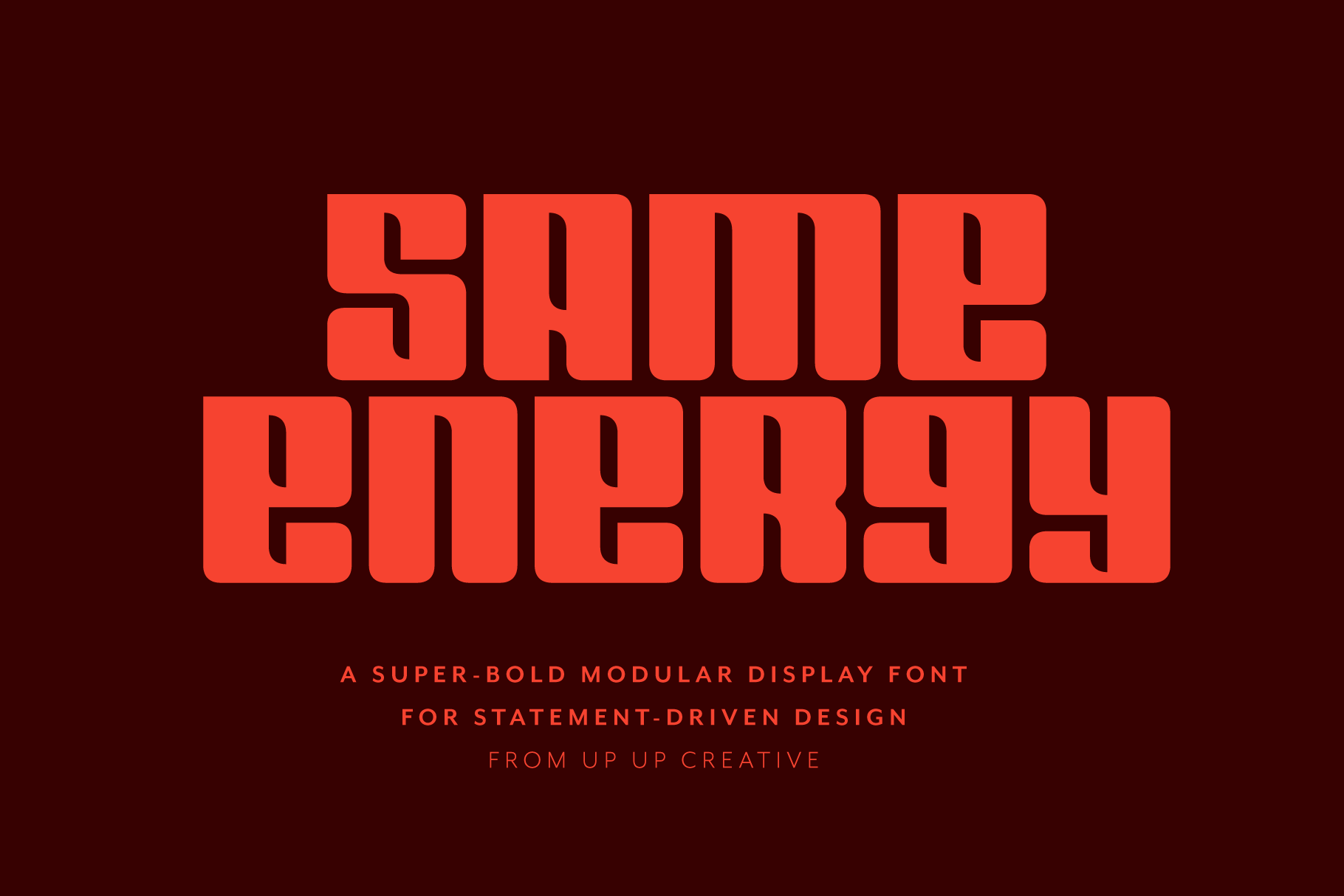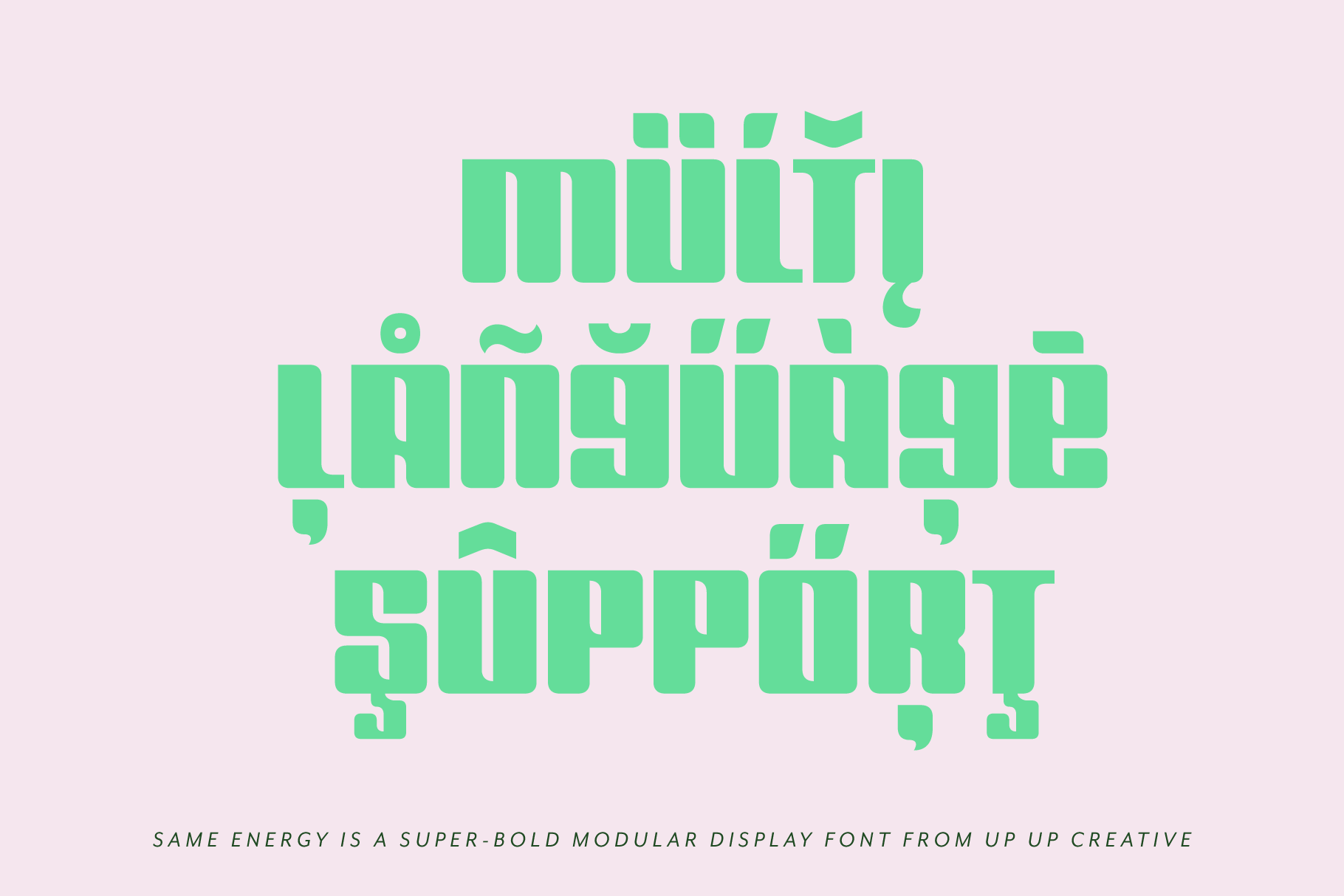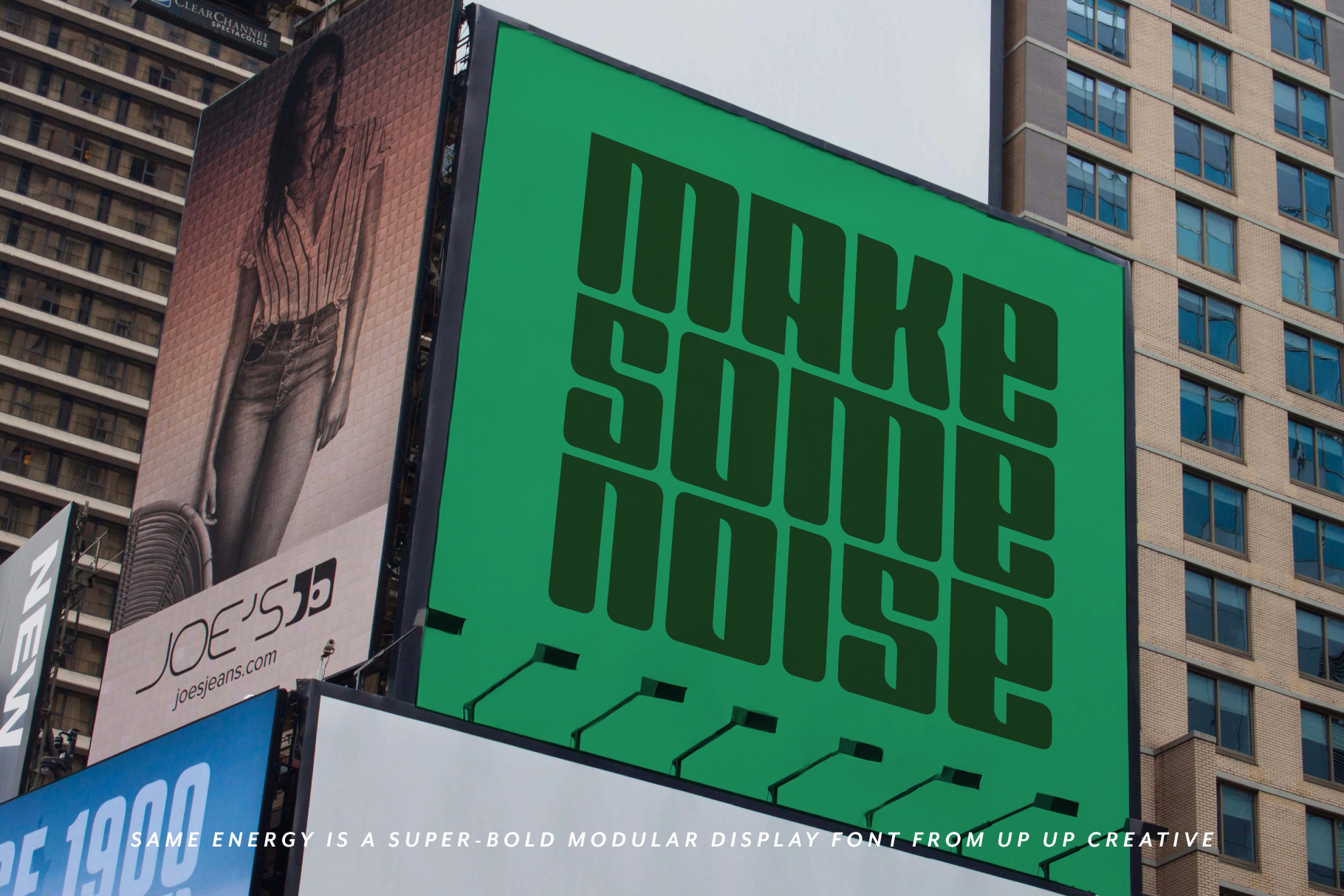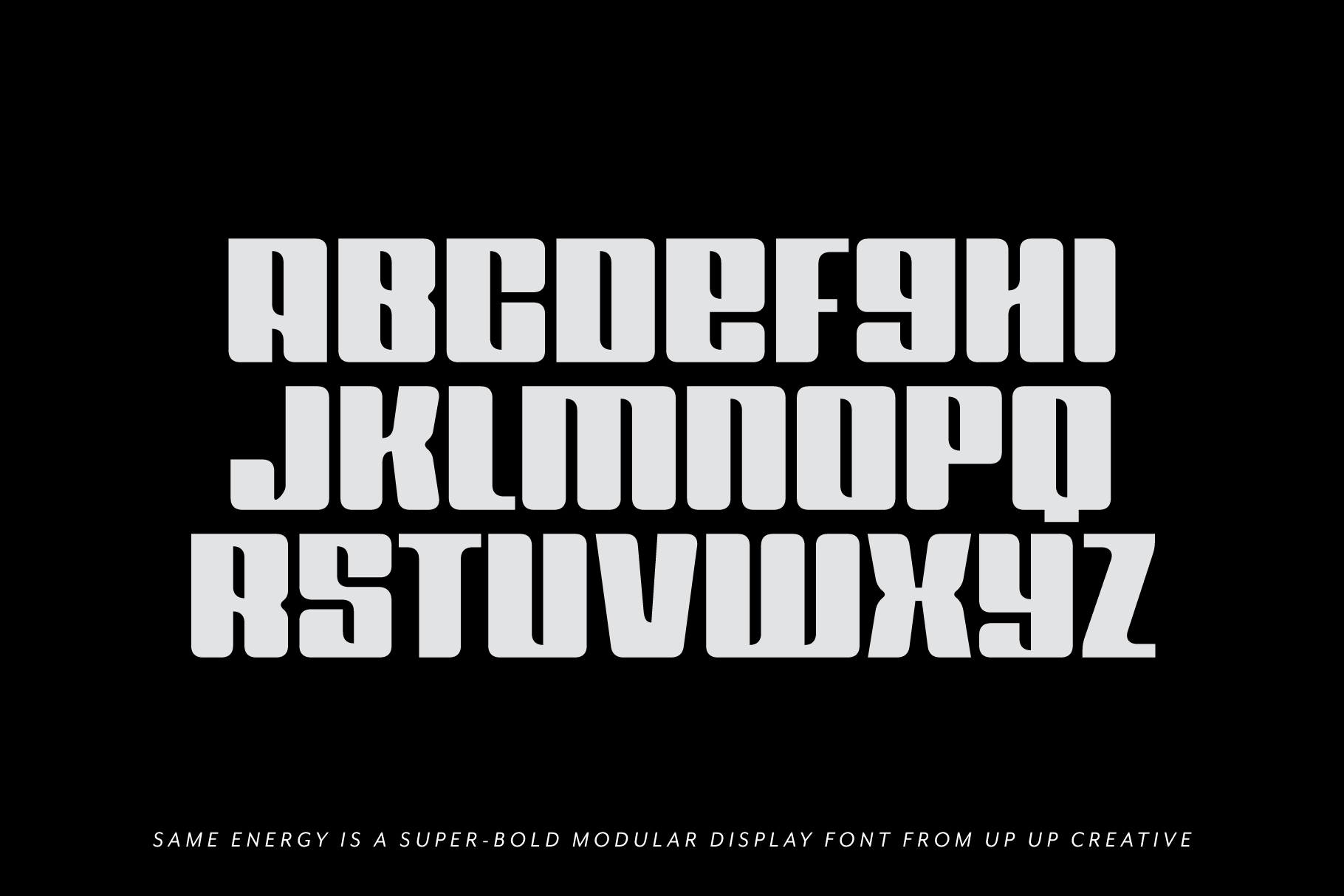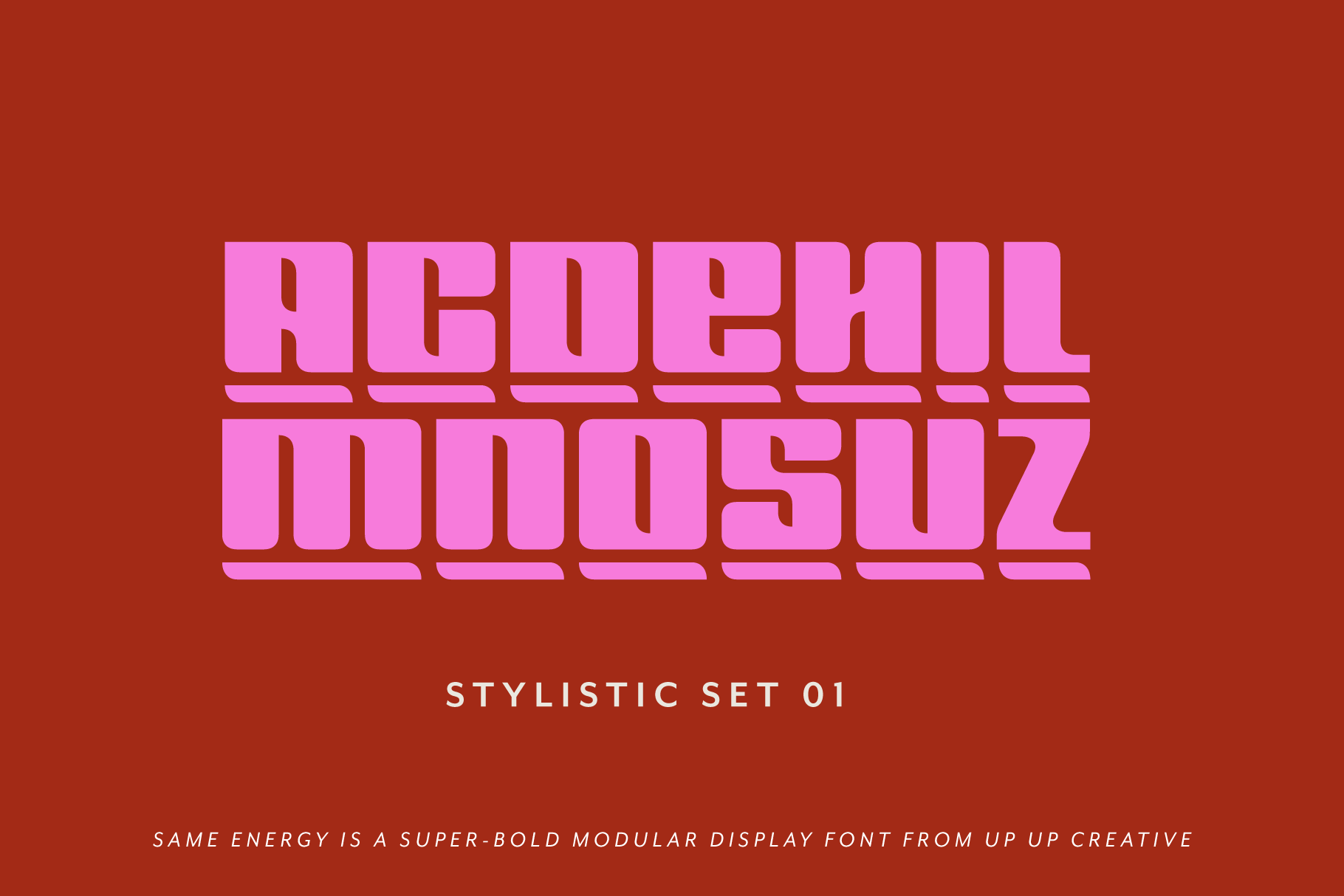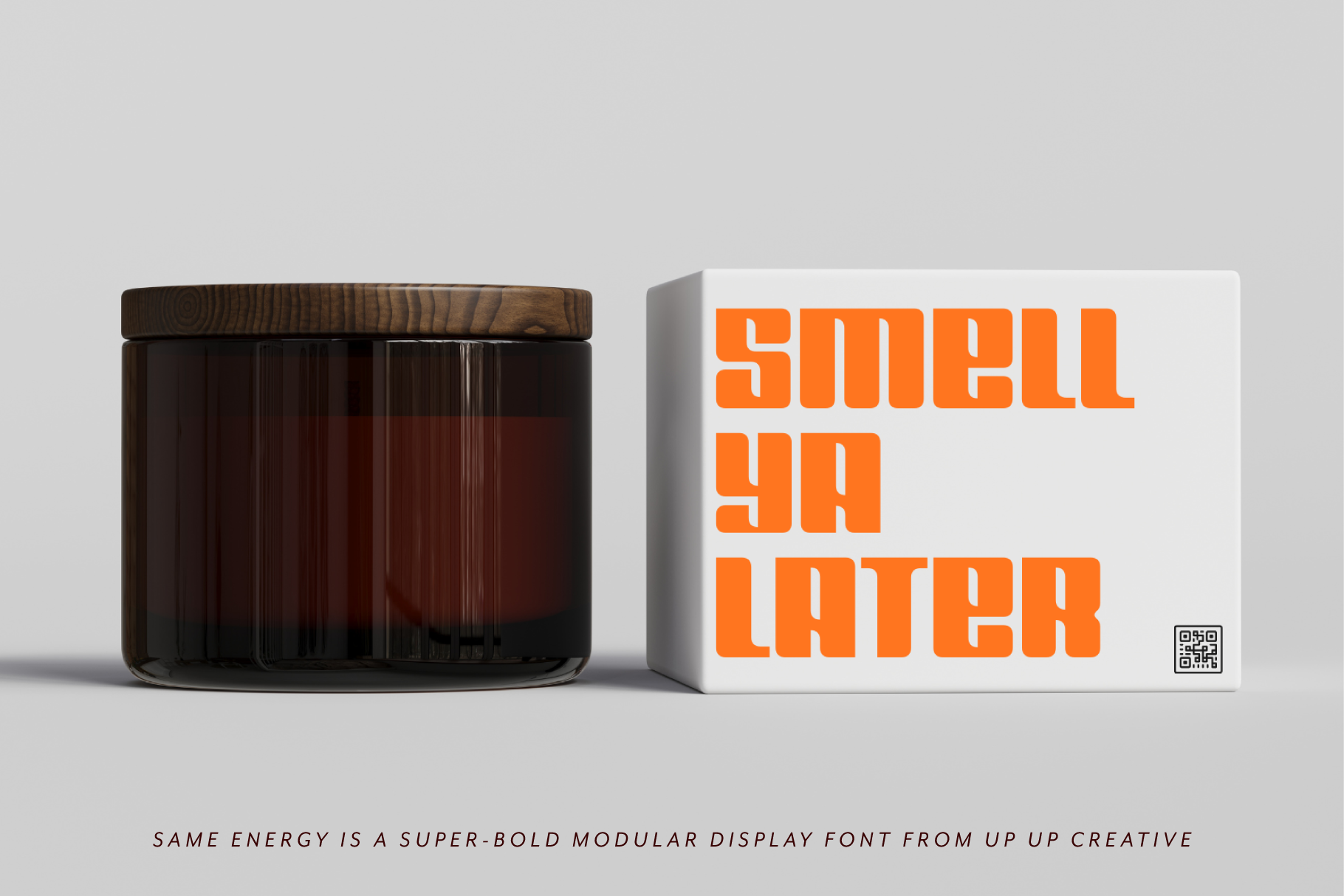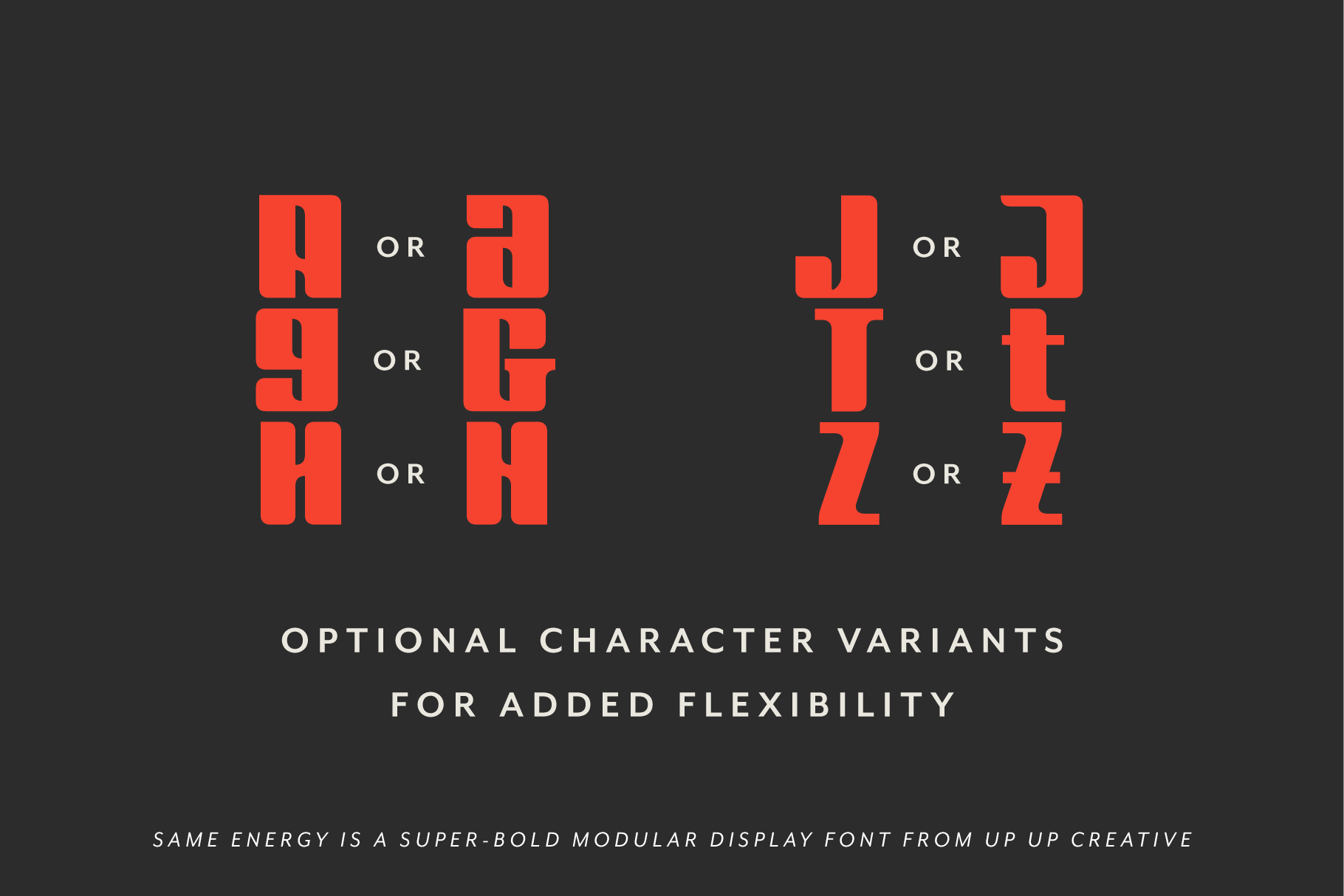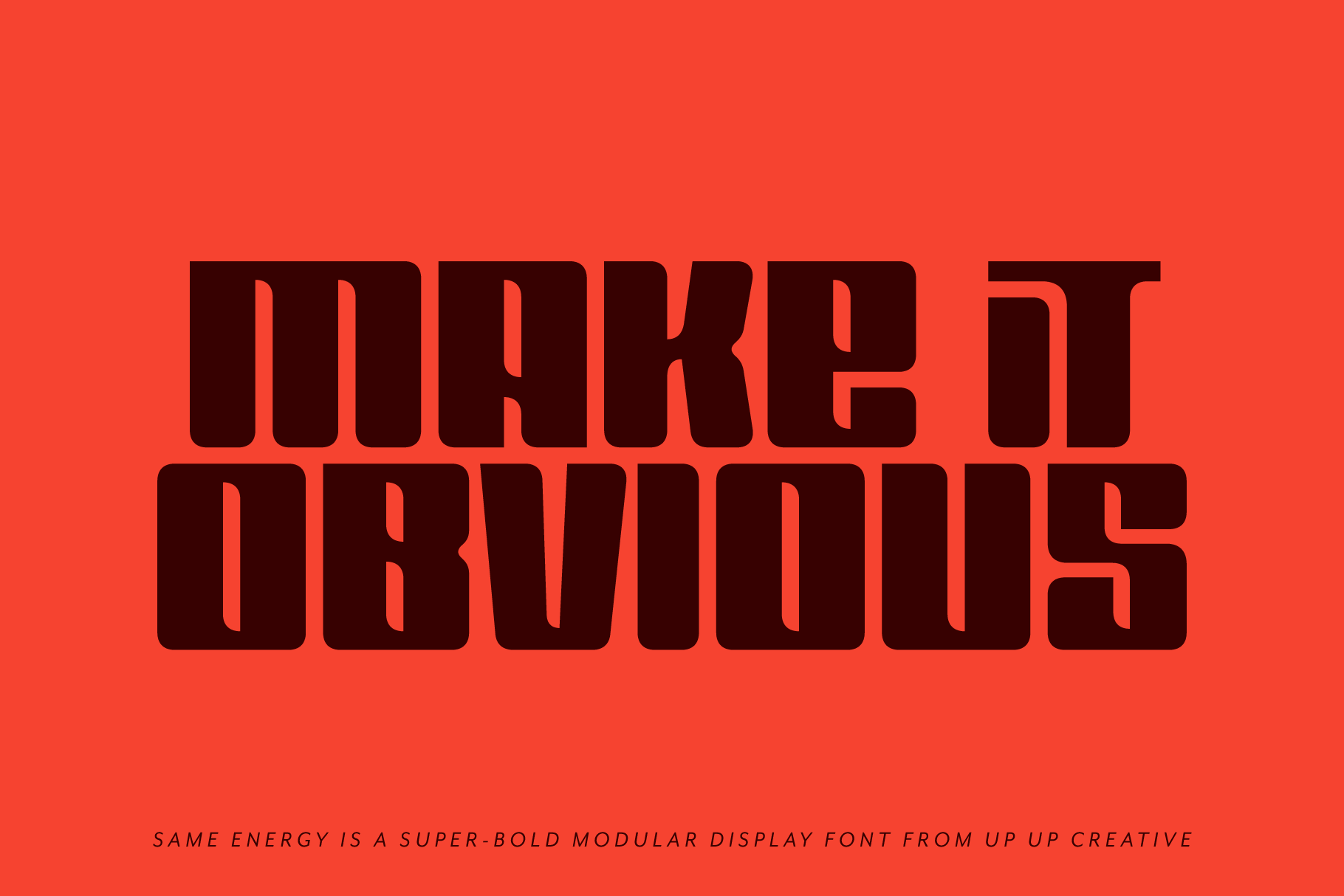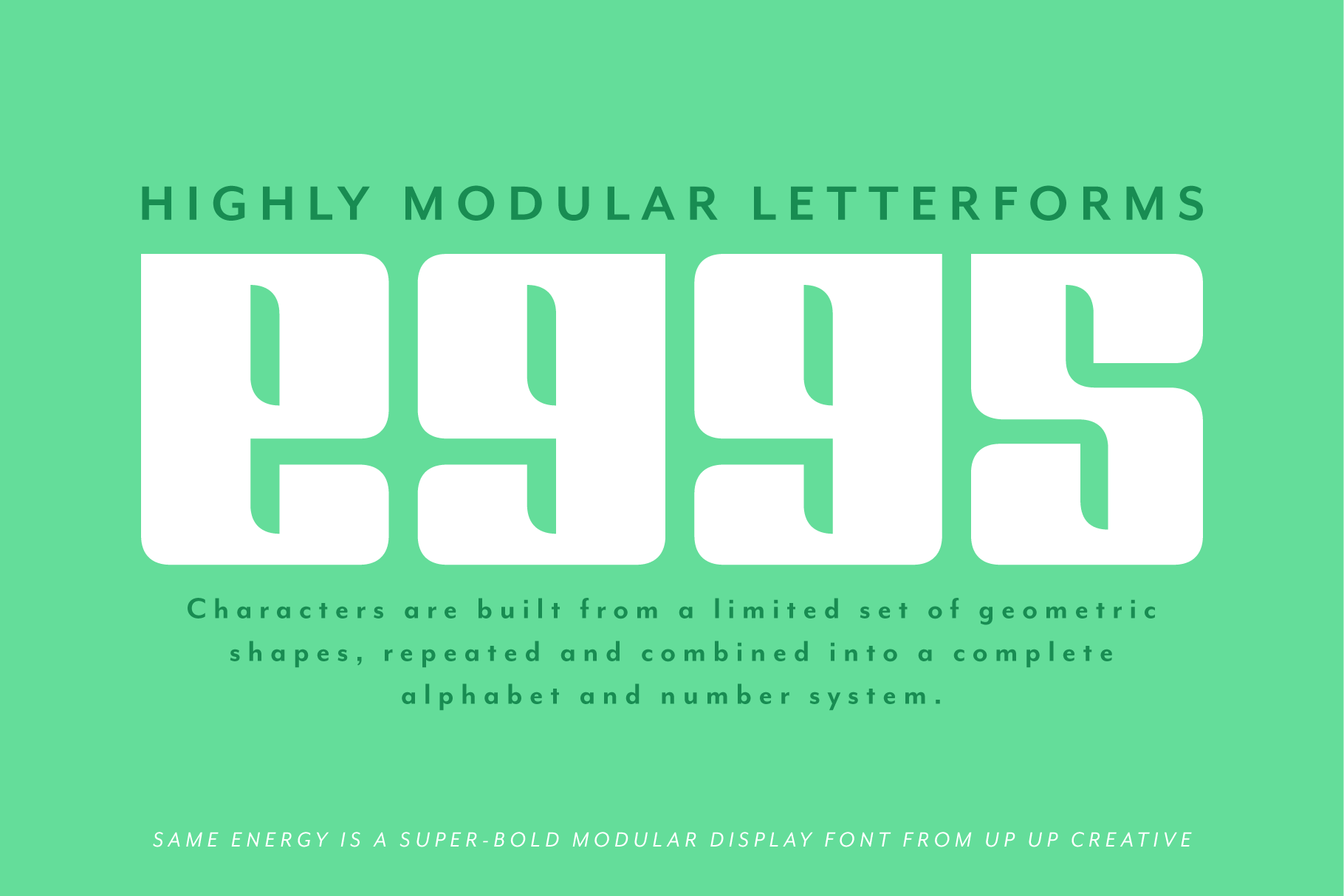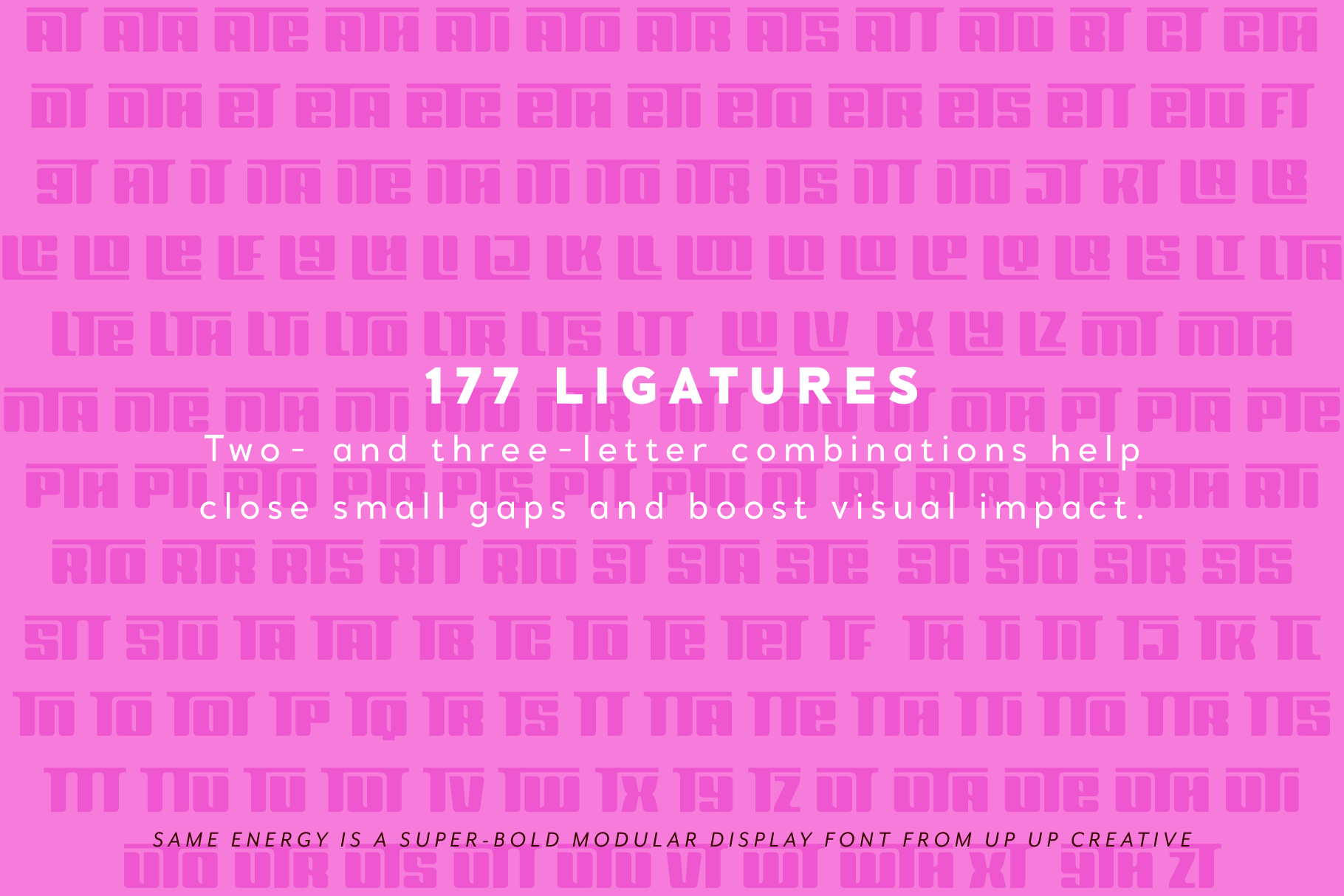
Same Energy Modular Sans Serif Font
Same Energy is a super-bold modular display font built for statement-driven design. Its highly structured letterforms and tight spacing create immediate impact, making it ideal for branding, headlines, posters, packaging, and bold editorial layouts. Designed to be graphic, confident, and unapologetically loud, Same Energy excels anywhere the type is the message.
Constructed from a limited set of geometric shapes, Same Energy embraces repetition, contrast, and rhythm to form a cohesive visual system. With 177 two- and three-letter ligatures, stylistic alternates, and character variants, it offers flexibility without sacrificing clarity. Use ligatures to tighten gaps, add personality, or push compositions further while keeping layouts clean and intentional.
Whether you’re designing logos, large-scale typography, or eye-catching social graphics, Same Energy delivers bold structure with just enough playfulness to keep things interesting.
Same Energy includes the following OpenType features:
- character variants
- discretionary ligatures
- fractions, ordinals, and superscripts
- localized forms (multi-language and multi-currency support)
- standard ligatures
- stylistic sets
Includes 177 ligatures
- Includes 849 glyphs
- 1 Style, 1 Weight